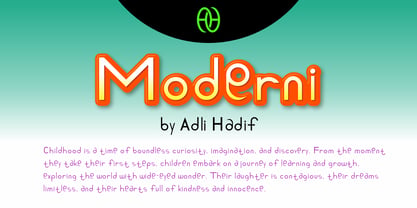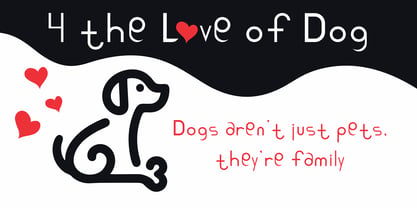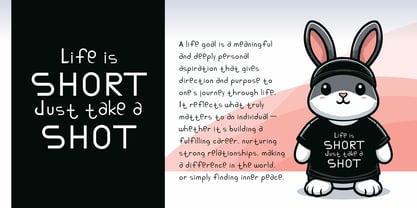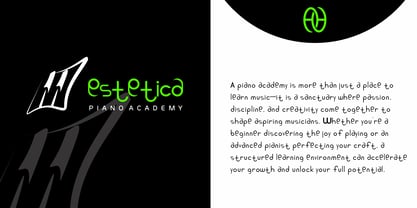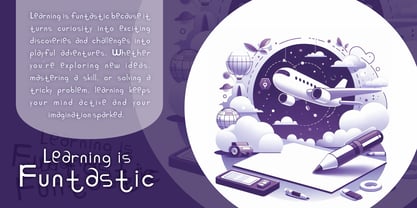
Moderni
by Minoritype
The Moderni Font Family was designed by Adli Hadif Shamsul Adli and published by Minoritype. Moderni contains 2 styles and family package options. More about this family
This cartoonish font is suitable for use in campaigns, posters, articles, ads, flyers, brochures, t-shirts printing catchy word, cute phrases or logos related to children or kids, and baby products. This font is designed to look cheerful, happy, interesting and fun to create an atmosphere of harmony, funny, entertaining, playful, amusing, humor, friendly and safe.
Designers: Adli Hadif Shamsul Adli
Foundry: Minoritype
About Minoritype
Minoritype was launched in Malaysia in mid-April 2023 by a group of high school graduate designers. The selection of the name Minoritype is because we originally focused on font design suitable for use by children and baby-related products. Our purpose is to create love for this group because children are the future. In line with the increasing age of our current target audience, our vision is to focus on fonts that suit the development of the latest generation according to the times.